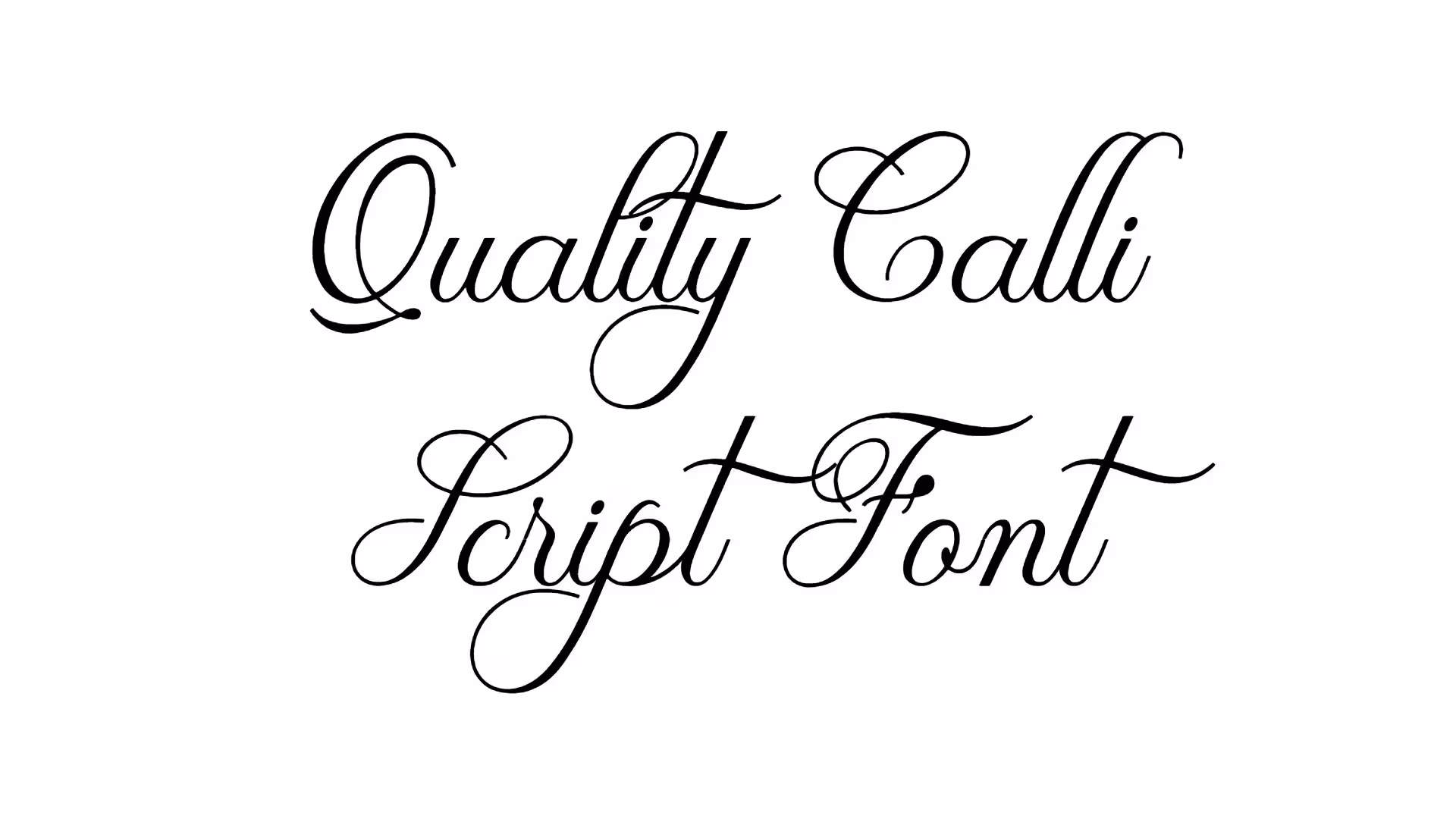
Quality Calli Script
Quality Calli Script is a calligraphy font made by iTypeface. Its flowing, pen-made letters give names and short phrases a personal, polished look. You can download it for free and test it with your own words in the preview above.
Quality Calli Script covers the full alphabet in upper and lowercase, plus all ten numbers, so you can set names, dates and prices without switching fonts. Common punctuation such as &, !, ? and @ is included as well. It doesn't include accented letters such as é or ñ, which makes it an English-only font.
Quality Calli Script is a natural fit for wedding invitations, certificates and elegant quotes. Script fonts read best in short bursts, so keep it to names, titles and one-line quotes. Skip all caps: script capitals are drawn to start a word, not to fill one.
No. Quality Calli Script has no accented letters such as é, ñ or ü, so it's best for English text.